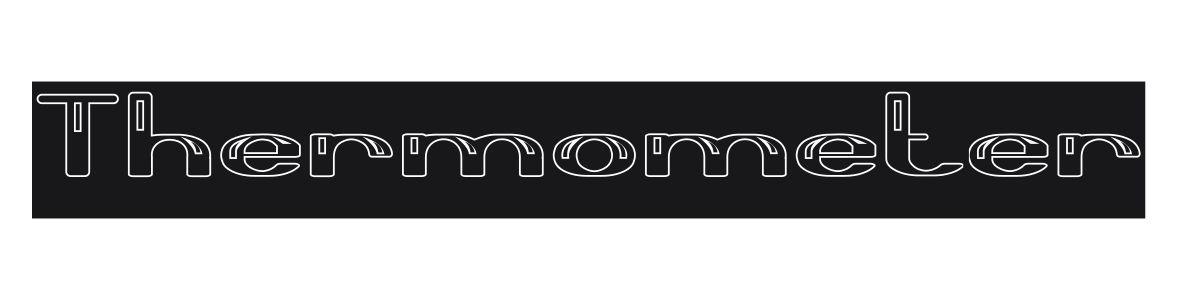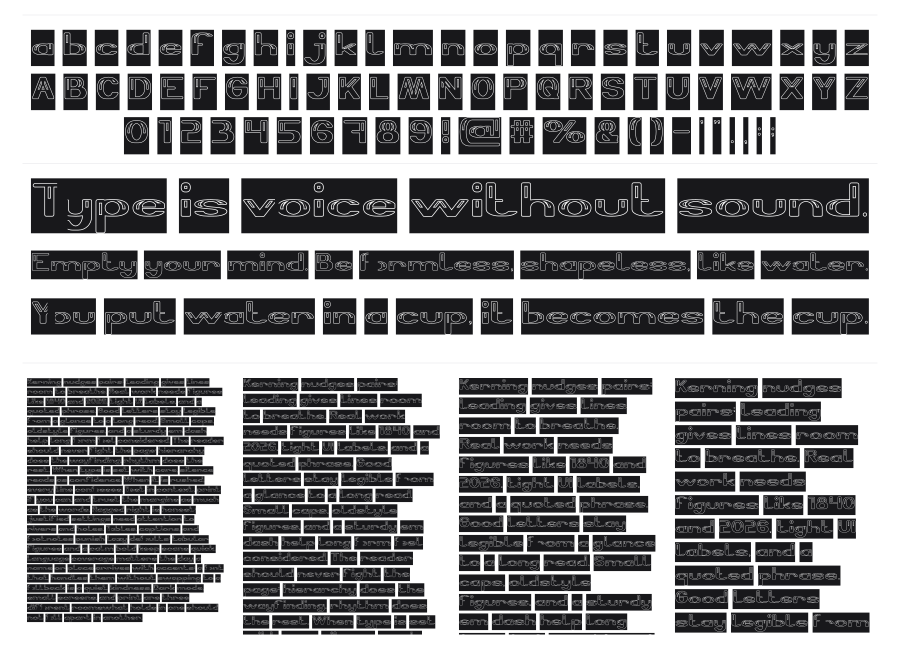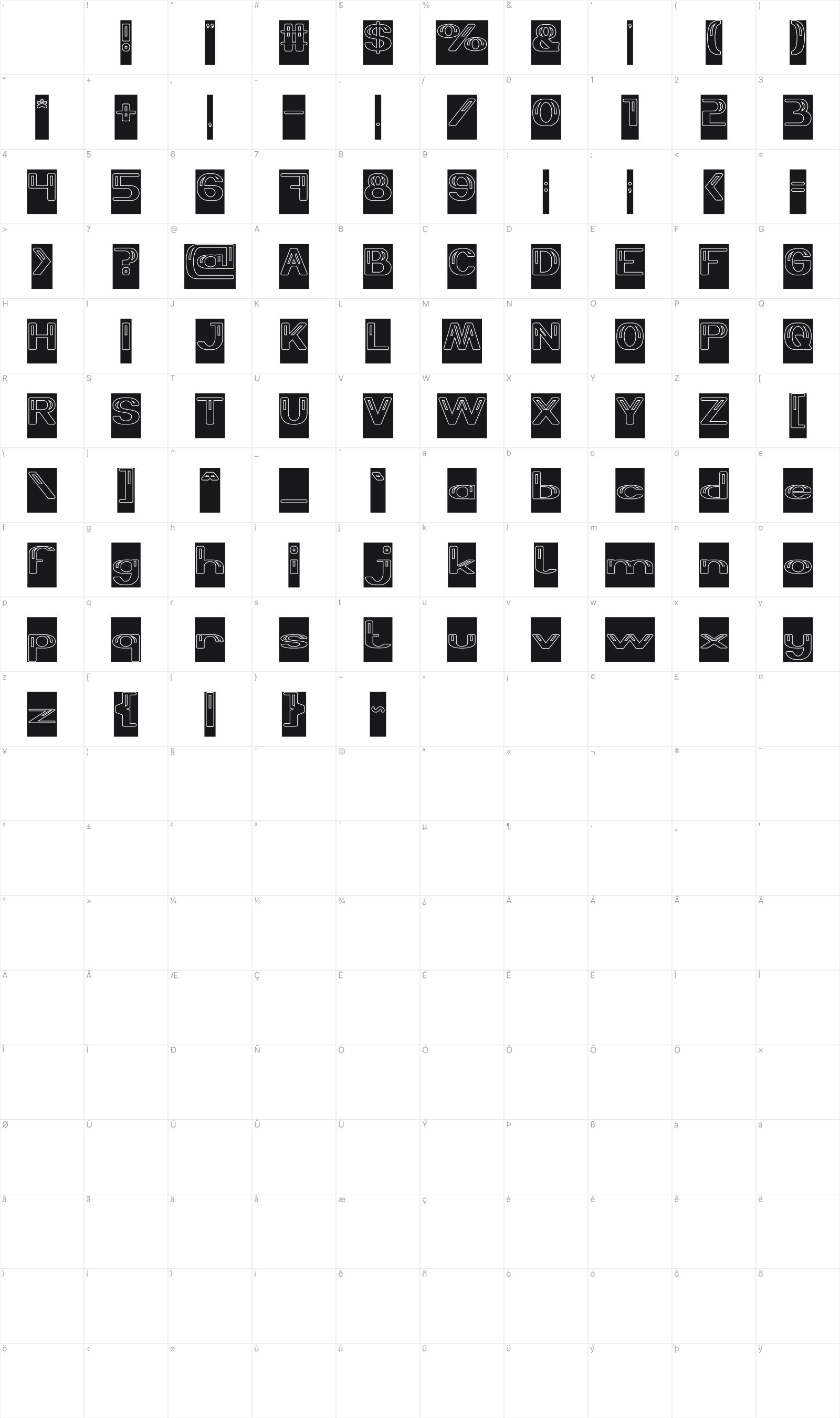
Thermometer
Thermometer is a rounded hollow outline display font with thick tubular strokes that give each character a neon-tube or inflated quality. Geometric construction meets soft terminals and enclosed inset details, landing somewhere between 1970s sci-fi and contemporary street graphics. It comes in a full family including light, bold, italic, inverse, and hollow variants.